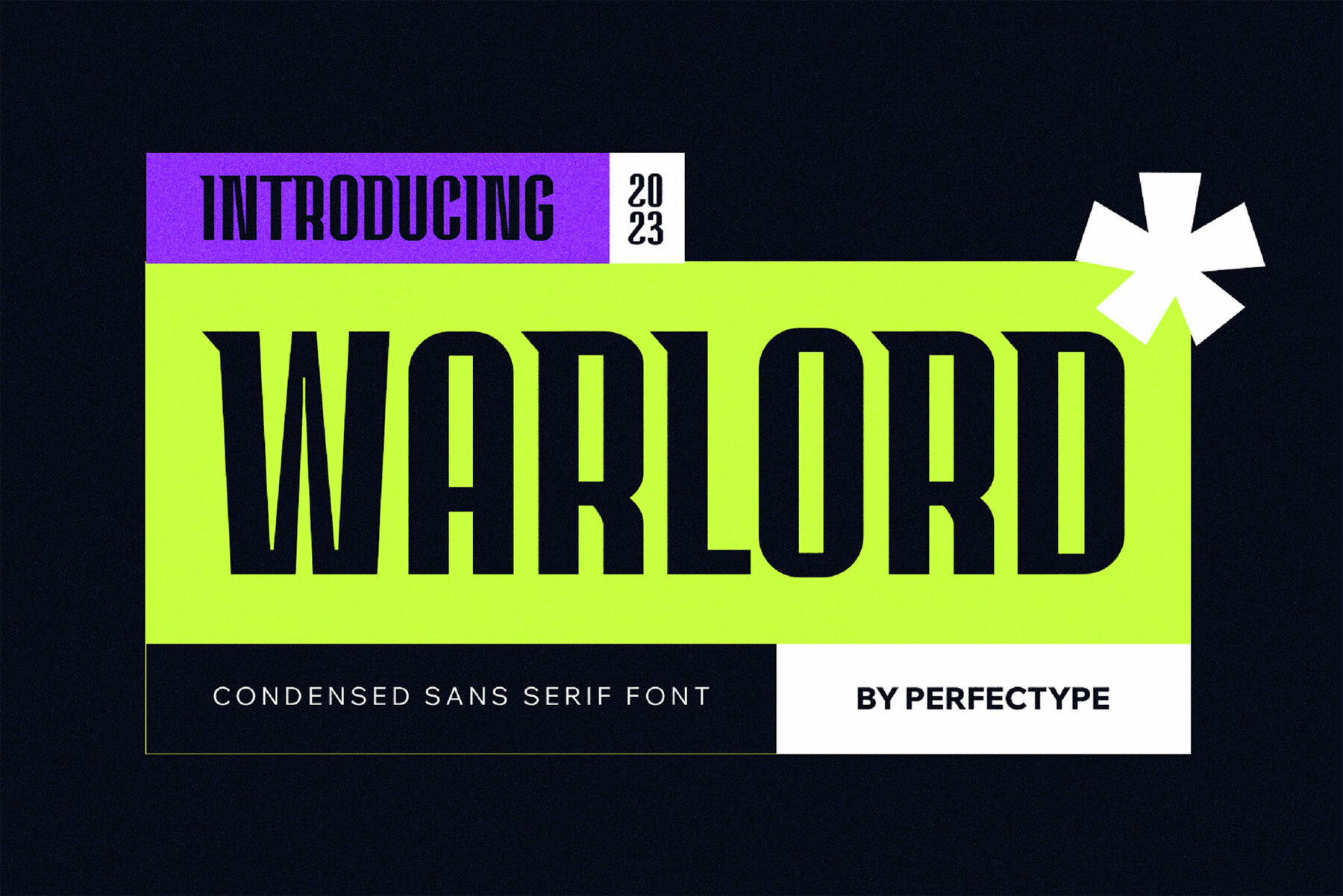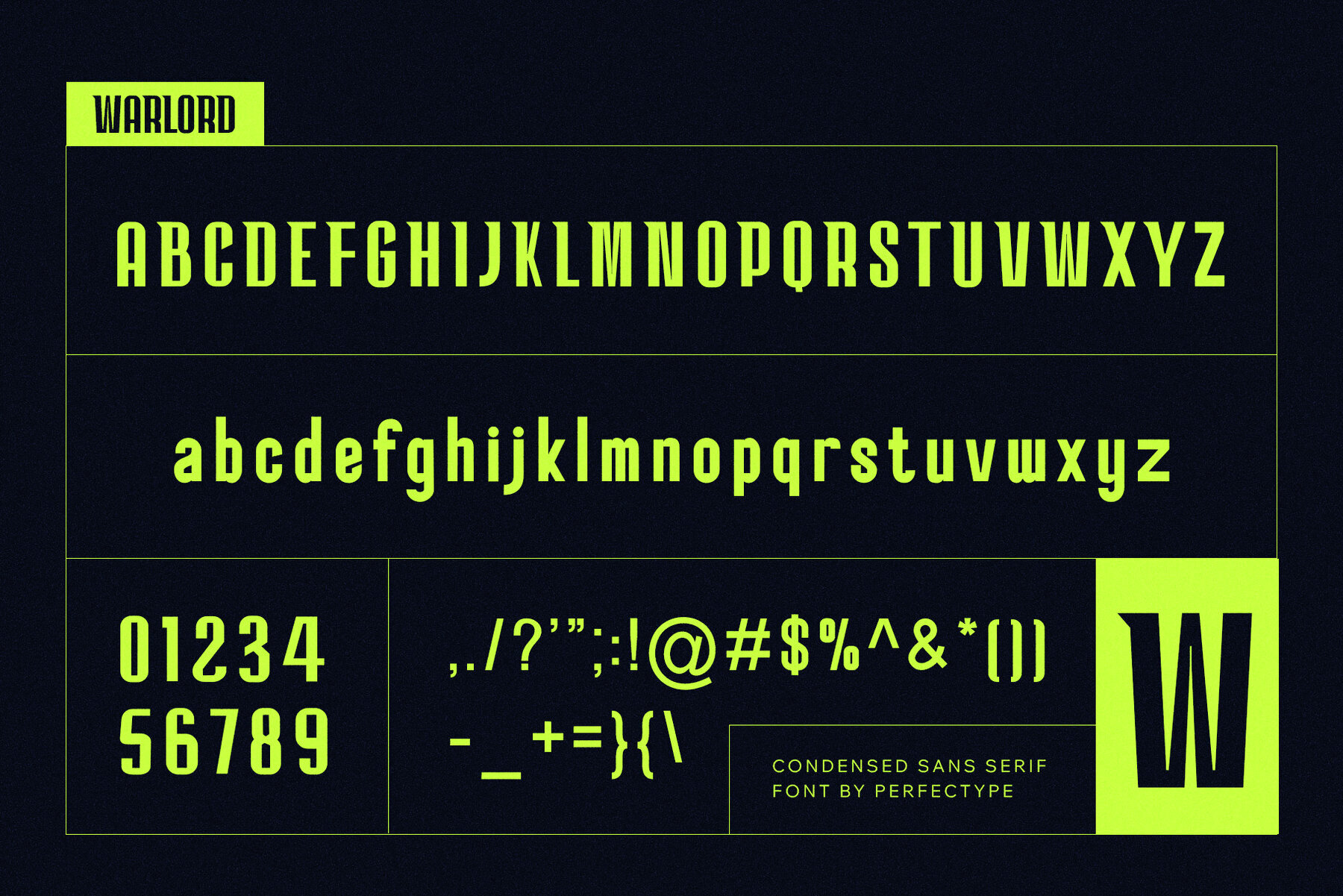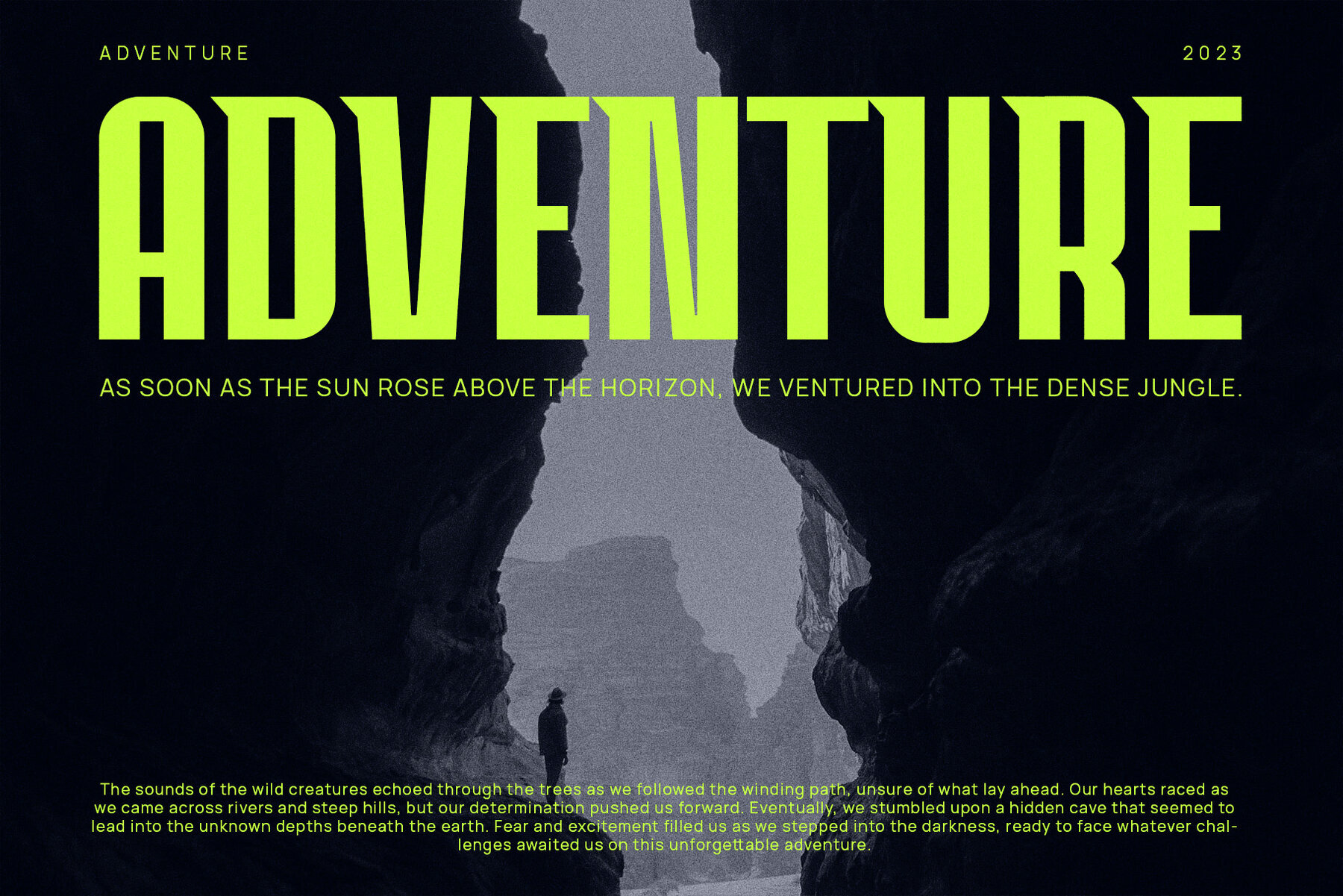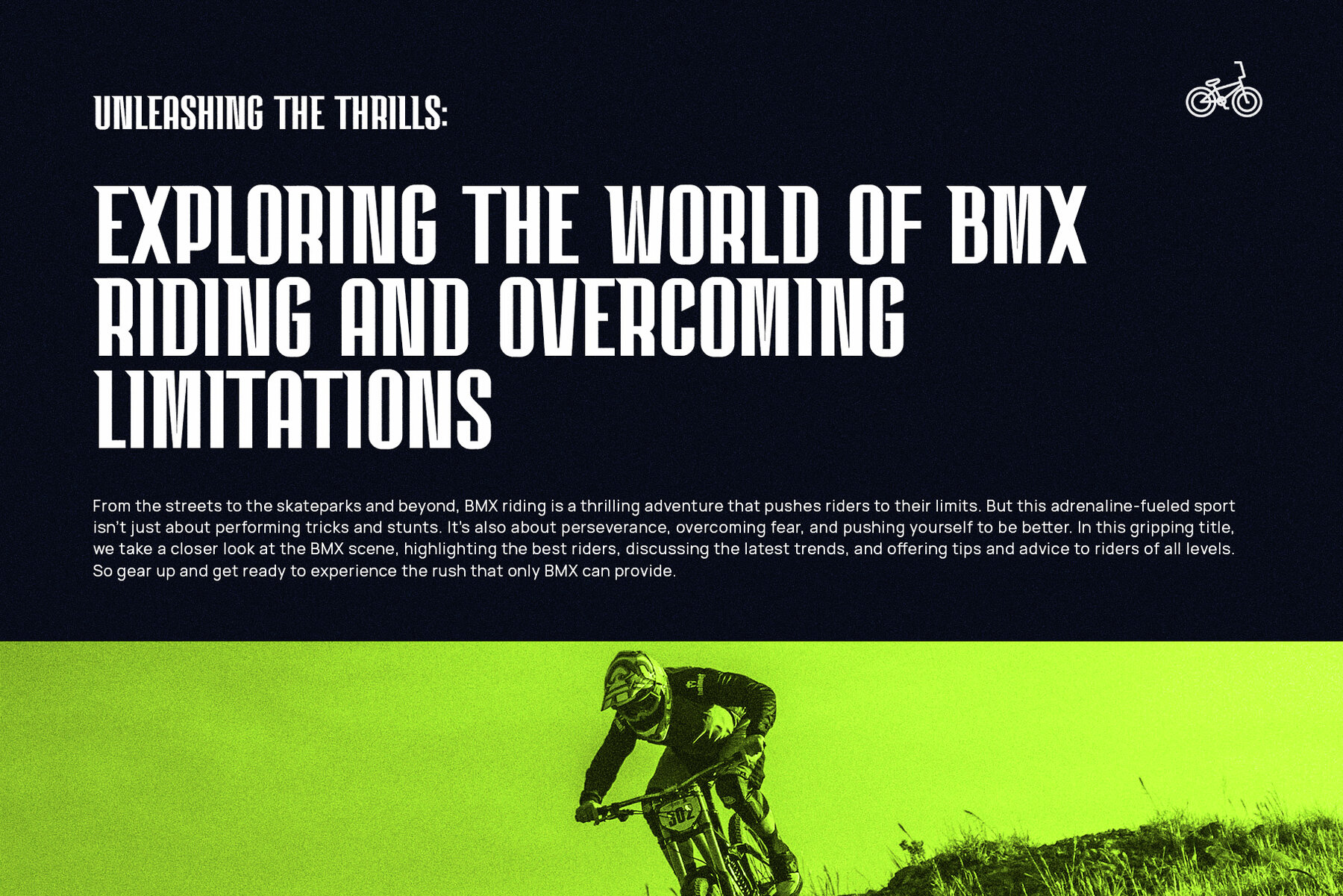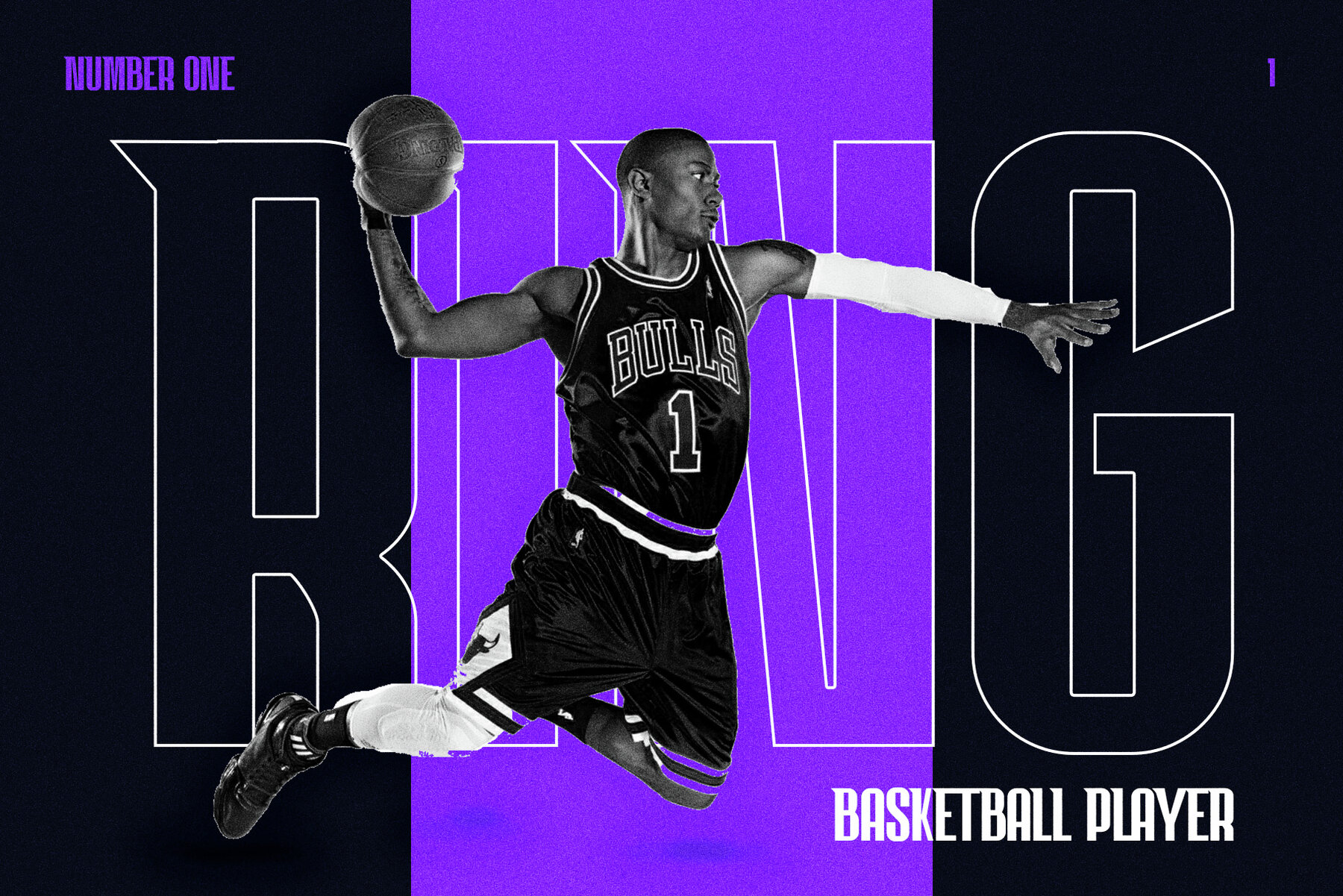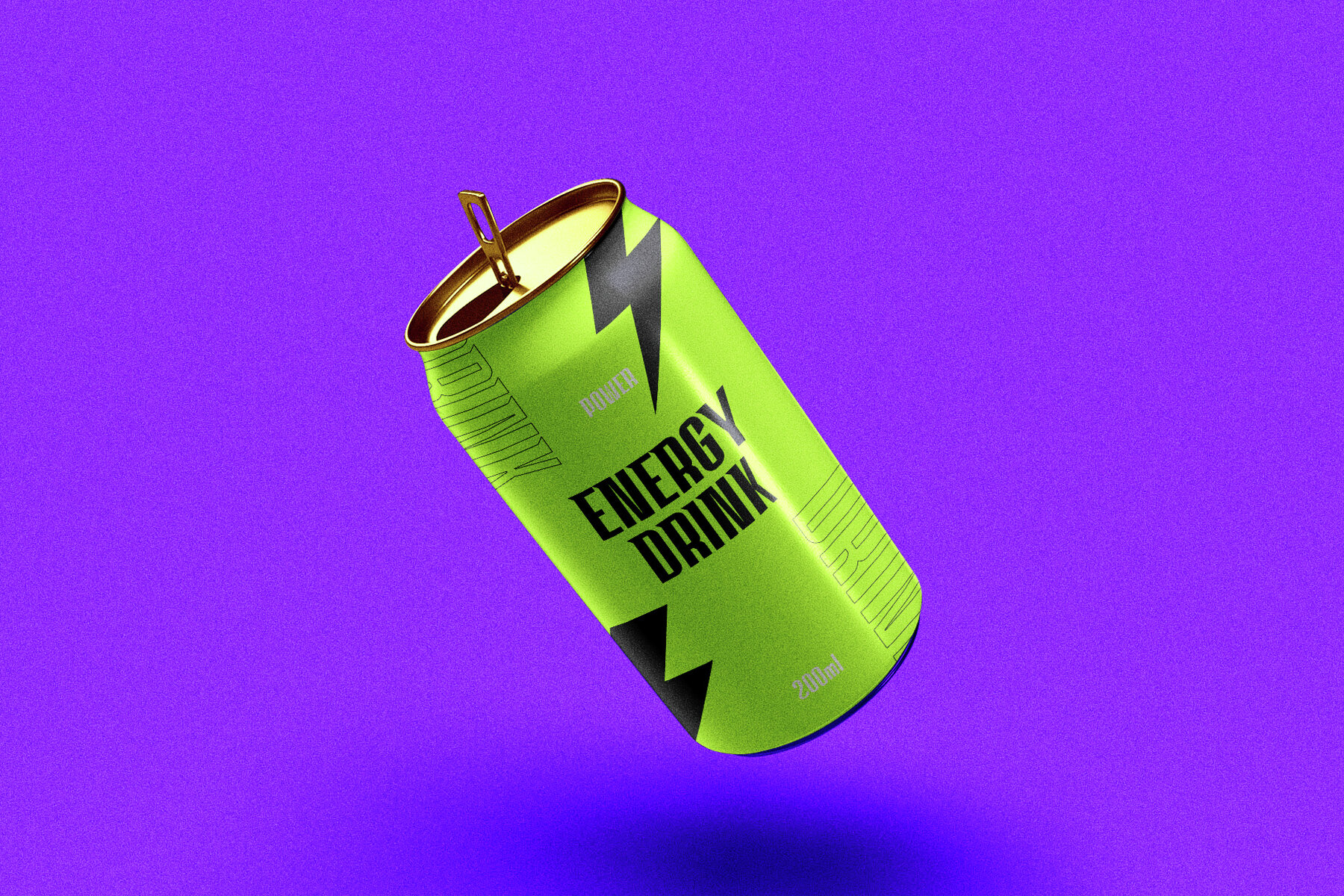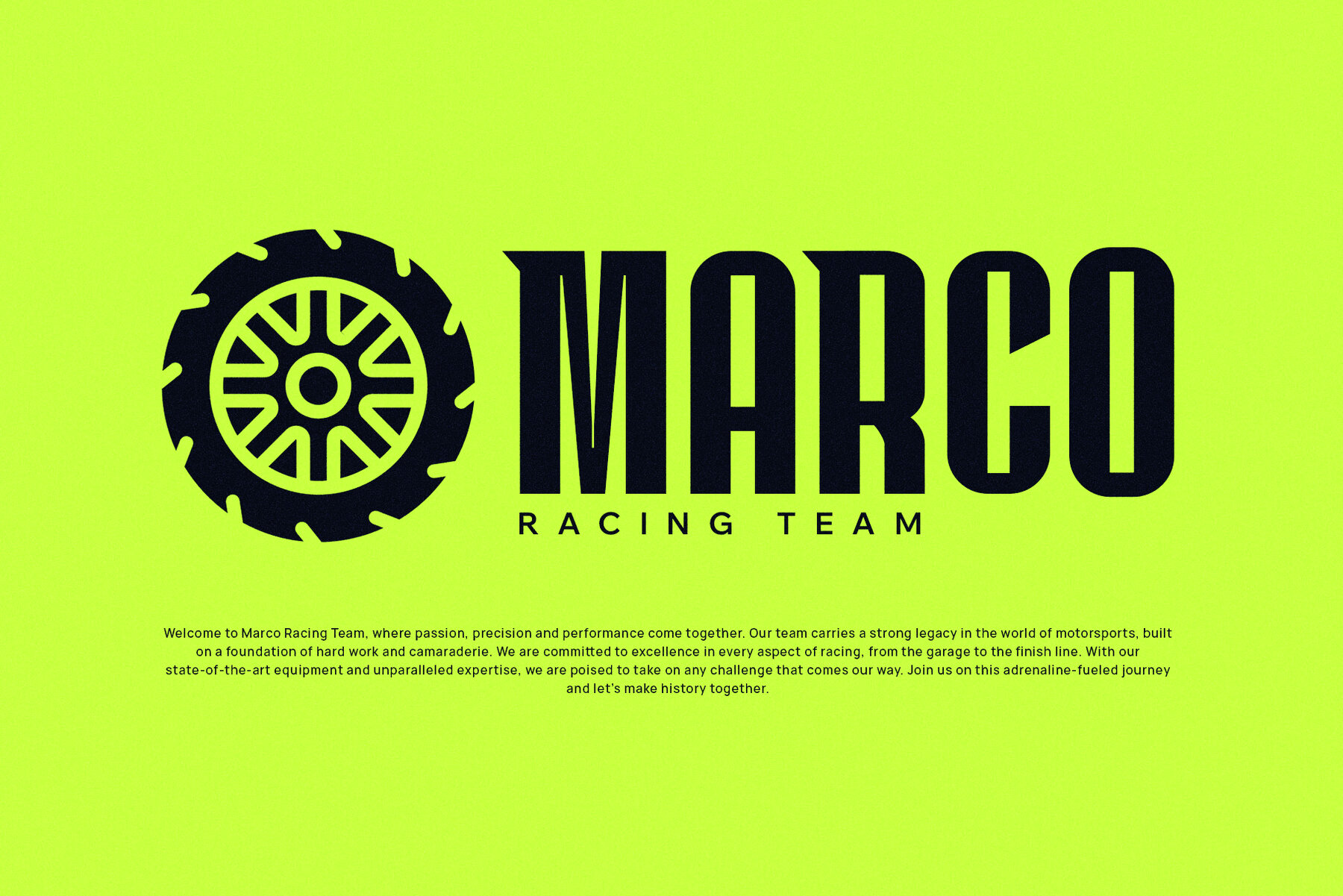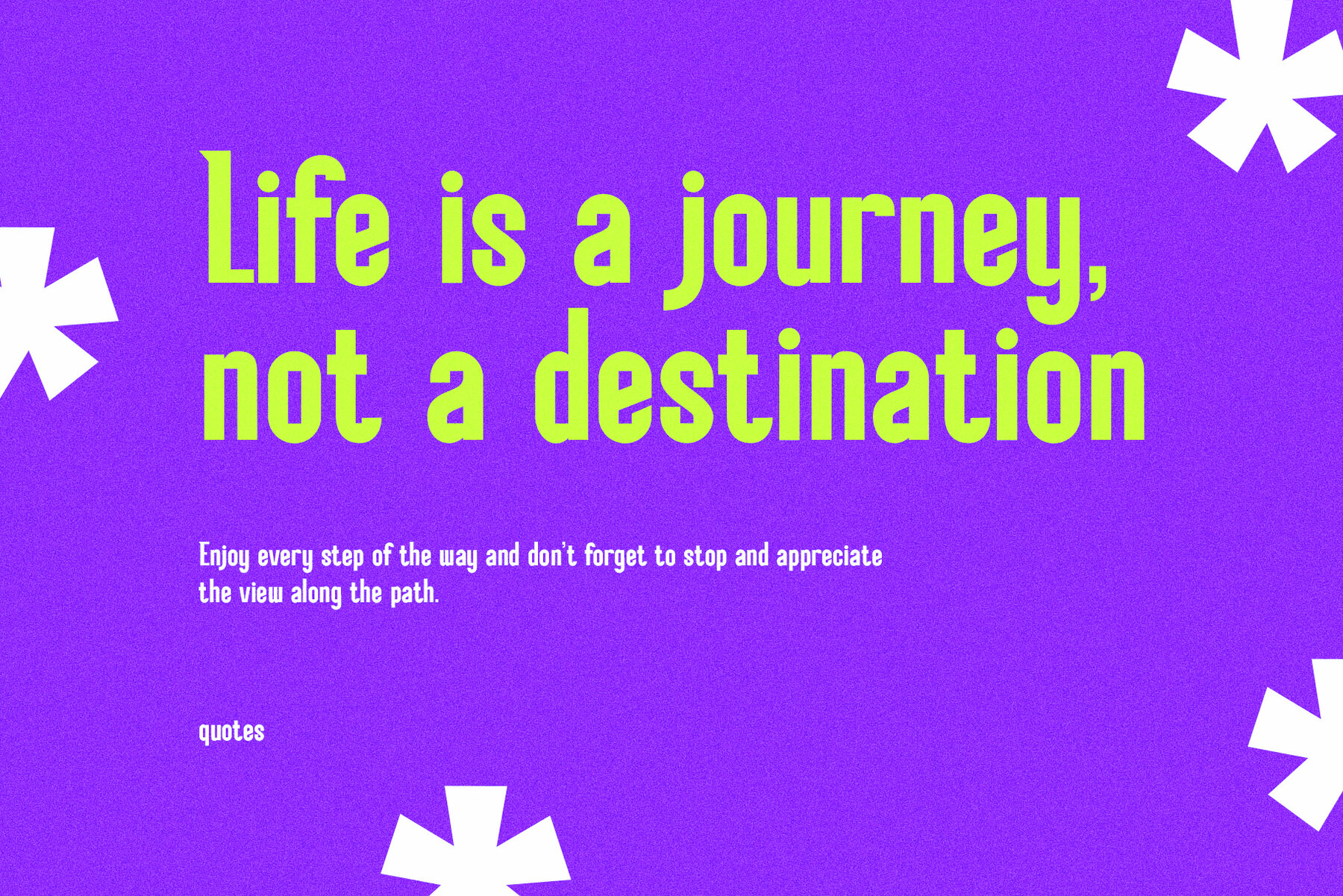
Warlord Font
Warlord Regular
Warlord is a sans serif font designed with balance and high readability in mind. This font is crafted with precision and attention to detail, making it ideal for a wide range of branding needs. Its neatness and philosophical depth ensure that it enhances any graphic design project, including brochures, videos, advertisements, logos, magazines, layouts, posters, and more. For the best experience, it is recommended to use Warlord in Adobe Illustrator or Adobe Photoshop. If you have any questions, feel free to reach out. We are happy to assist you with any inquiries.Warlord: A Balanced Sans Serif for High Readability